If you’re looking for a font in Canva that is similar to Century Gothic, you’ll be pleased to know that there are quite a few options available. Here are some of the best fonts that you can use in Canva that will give you a similar look to Century Gothic:
1. Arial
Arial is a sans-serif typeface that was designed back in the 1980s. It’s a very popular font that is used by many businesses and organizations. Arial is similar to Century Gothic in that it has clean lines and is very easy to read.
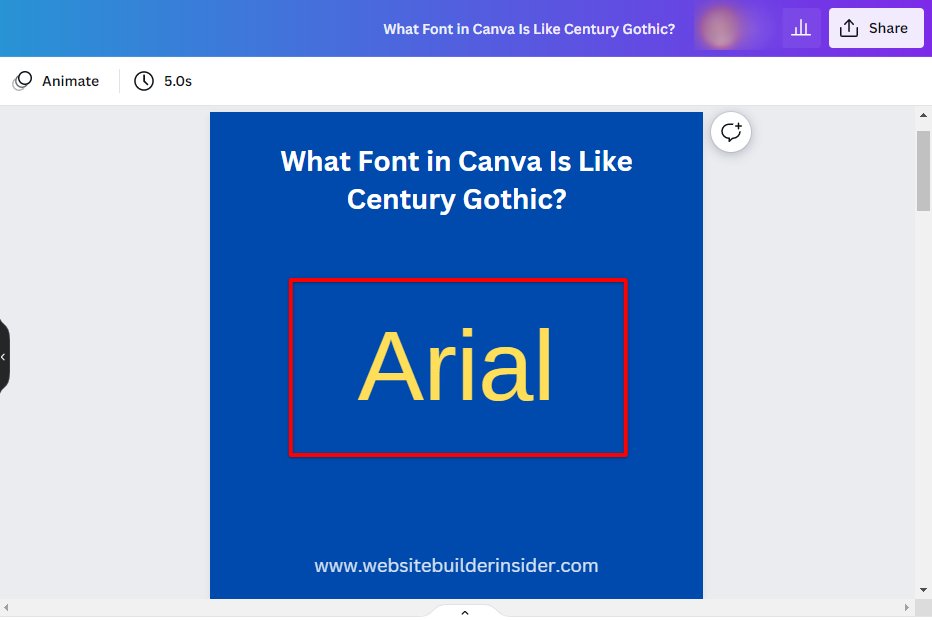
2. Helvetica
Helvetica is another sans-serif typeface that is similar to Century Gothic. Helvetica was designed in 1957 and has been used by many businesses over the years. Helvetica is known for its clean, simple, and easy-to-read design.
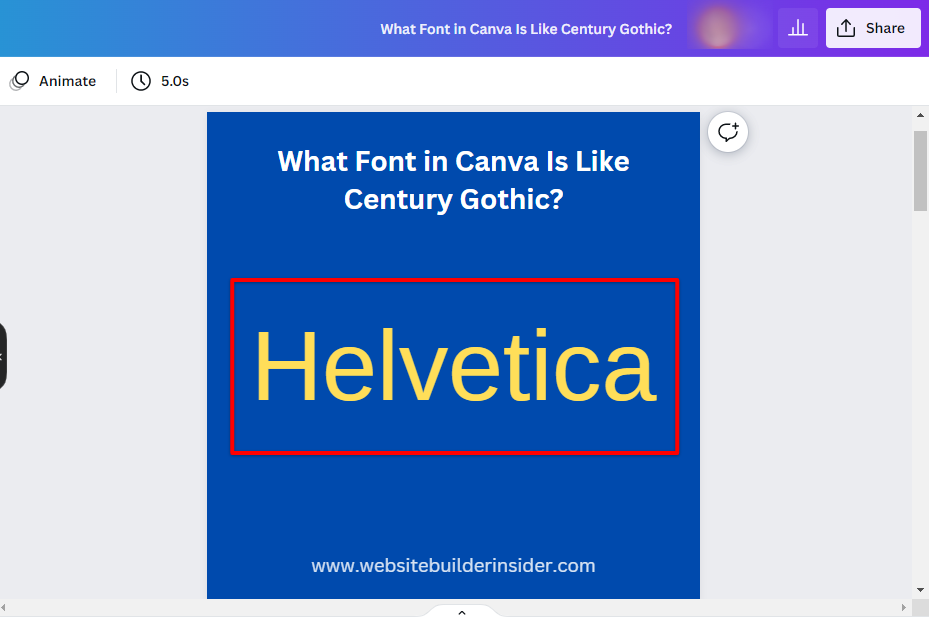
3. Verdana
Verdana is a sans-serif typeface that was designed specifically for screens. It was created in 1996 and has become one of the most popular fonts for web use. Verdana is similar to Century Gothic in that it is very easy to read on screens.
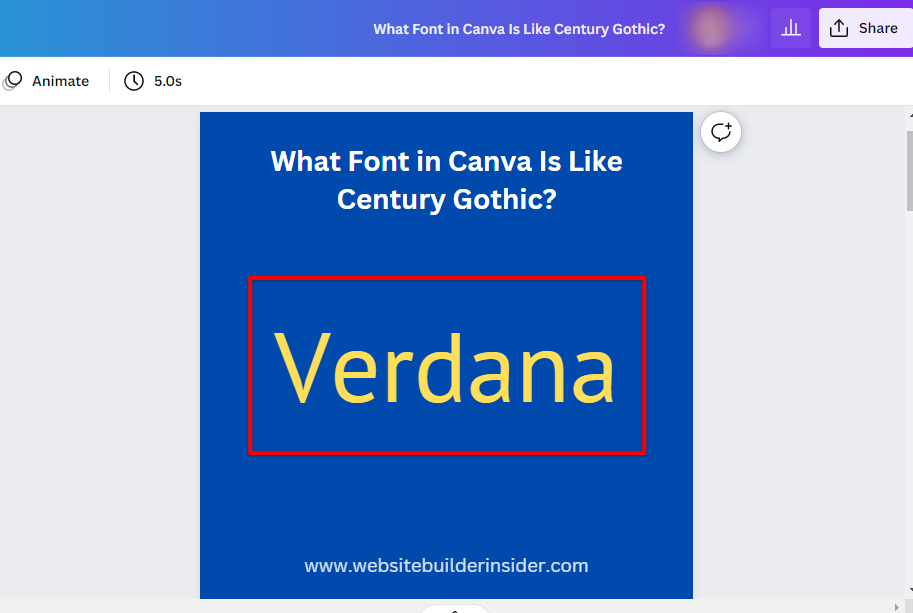
4. Tahoma
Tahoma is a sans-serif typeface that was designed in the 1990s. Tahoma is similar to Century Gothic in that it has clean lines and is easy to read. Tahoma is also a good choice for web use as it renders well on screens.
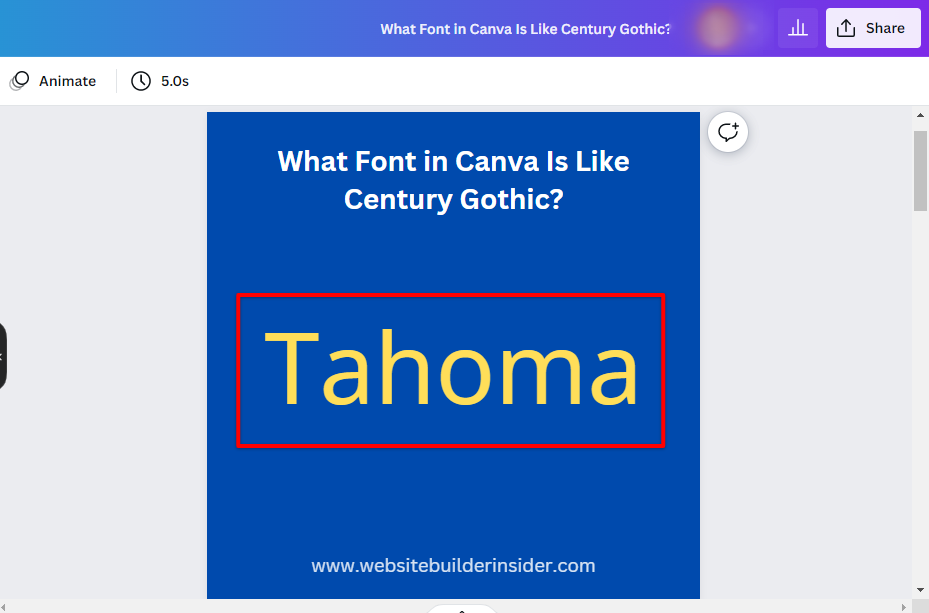
5. Futura
Futura is a sans-serif typeface that was designed back in the 1920s. Futura is known for its modern design and clean lines. Futura is similar to Century Gothic in that it has a modern look and feel and is easy to read.